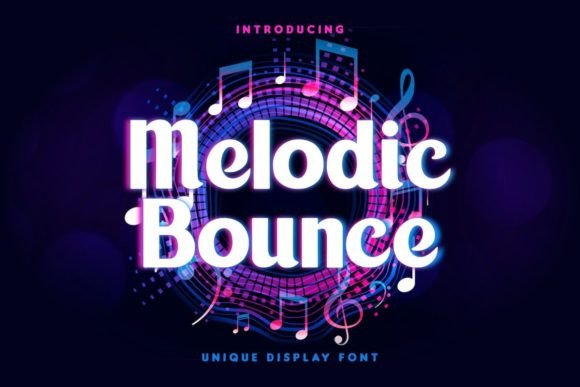
Introducing Melodic Bounce Font, a symphonic dance of letters, ready to ignite your designs with an infectious rhythm. This display font, crafted by the maestro of EdricStudio, is not just a collection of characters; it's an orchestra of visual delight, a harmonious blend of modernity and timeless charm.
Melodic Bounce Font draws its inspiration from the vibrant energy of bouncing, disco music vibes. Its letters are like musical notes,�動ing and swaying, inviting you to dance along the lines of your imagination. Whether you're a wordsmith, a fashion icon, a festival impresario, a homeware enthusiast, a guardian of kid's dreams, a musical maestro, or a publishing virtuoso, Melodic Bounce Font will amplify your creative expression like never before.
With its universal appeal, Melodic Bounce Font effortlessly adapts to a myriad of industries, becoming an indispensable tool in your design arsenal. Its versatility is a testament to its inherent beauty, capable of transforming any project into a visual masterpiece.
Step into the spotlight and let Melodic Bounce Font orchestrate your designs, captivating your audience with its dynamic charm. Its vivacious personality promises to leave an indelible mark on every project, ensuring that your creations reverberate with the infectious rhythm of Melodic Bounce Font.